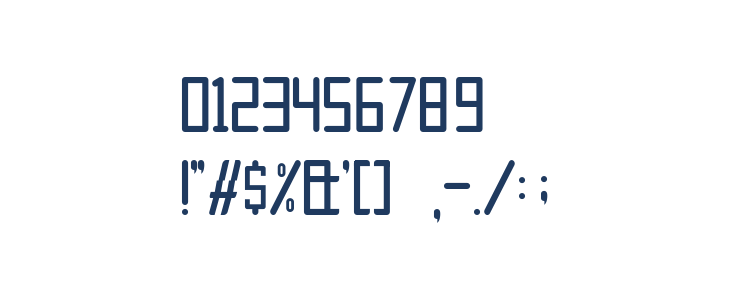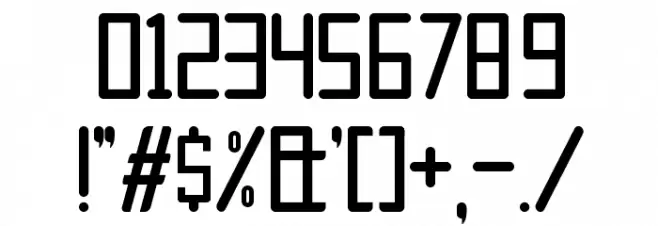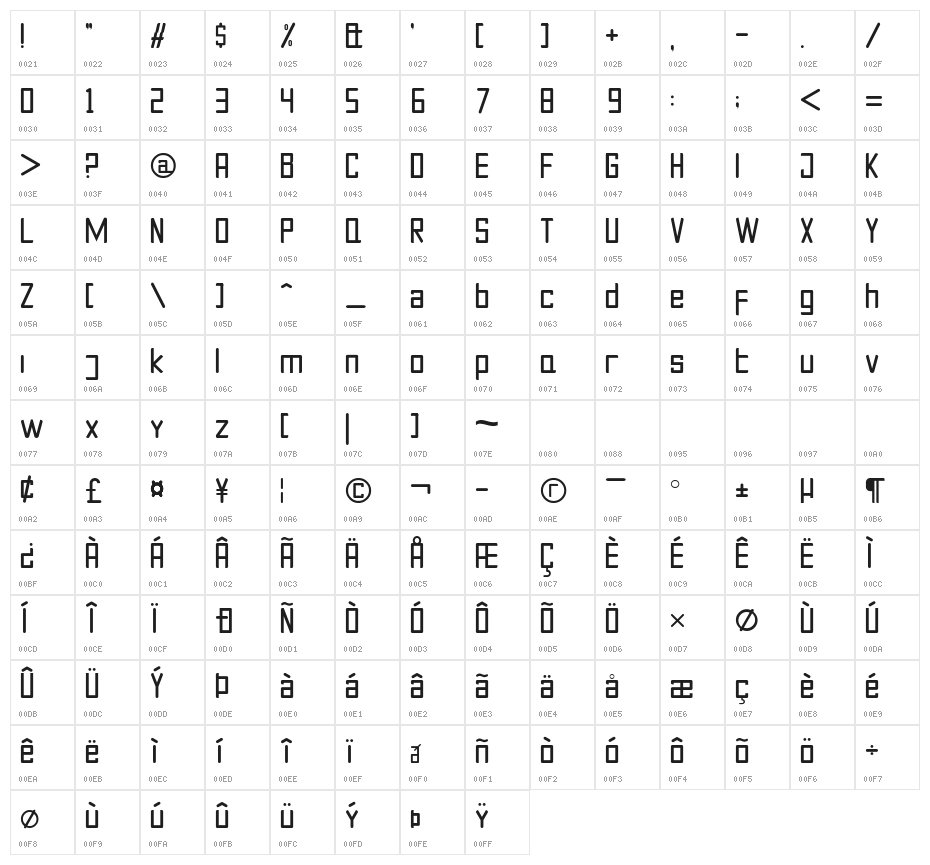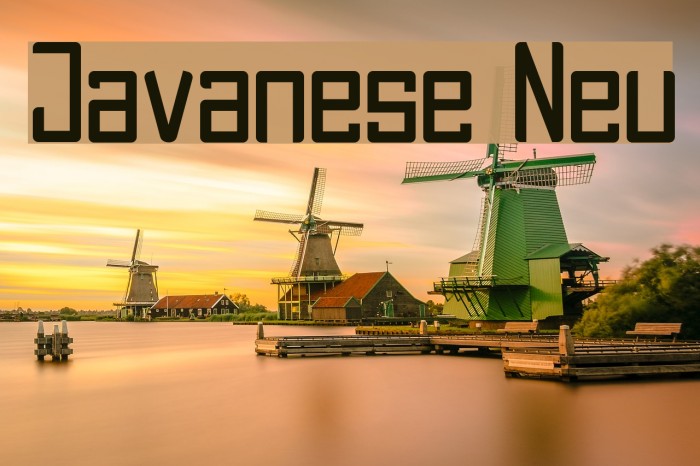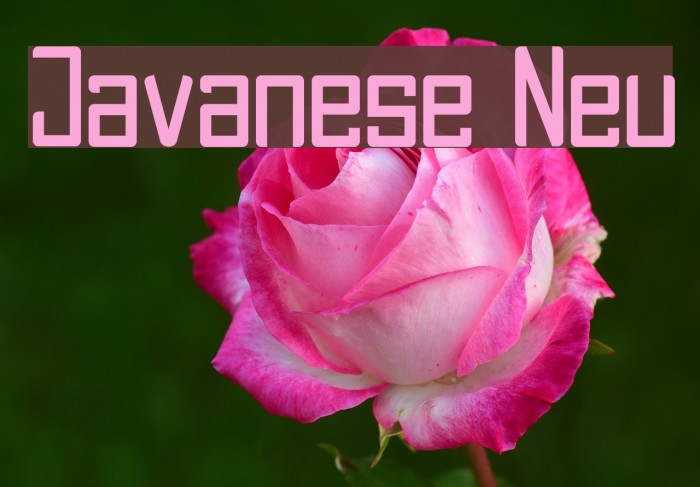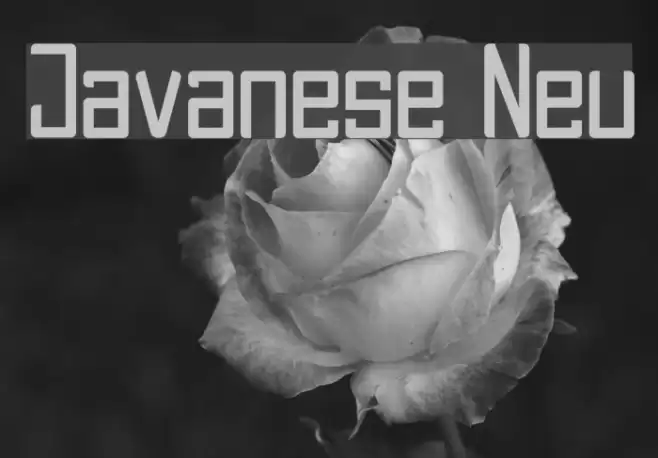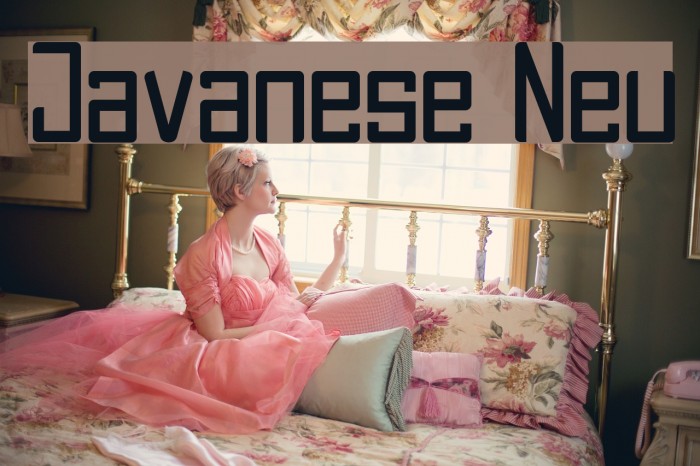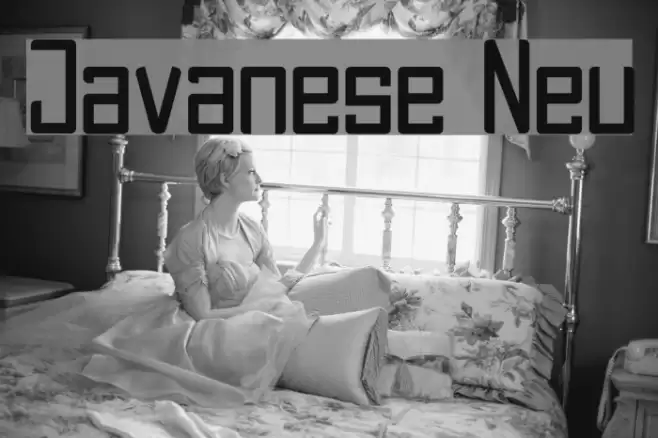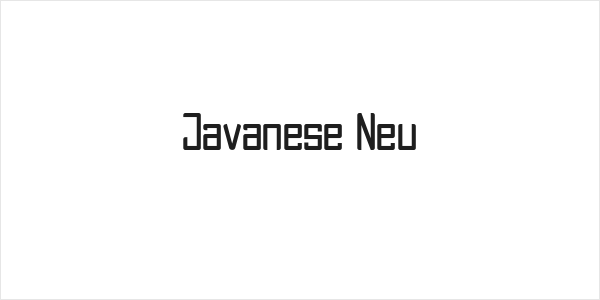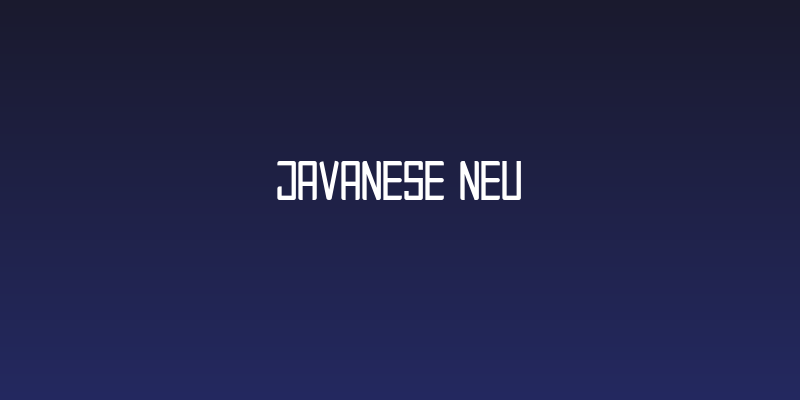
Javanese Neu Font
Javanese Neu Description
This typeface features a geometric and modern design with a strong emphasis on clean lines and angular shapes. The uppercase letters are bold and structured, with a uniform height and width that creates a cohesive look. The lowercase letters maintain the geometric style, offering a consistent visual flow. Numbers are clear and legible, matching the overall aesthetic of the font. Special characters are designed to complement the alphanumeric characters, maintaining the same angular and modern feel. This font is ideal for projects that require a contemporary and bold statement.
| Proposed Projects | Ideal for branding, headlines, posters, and digital media that require a modern and bold aesthetic. |